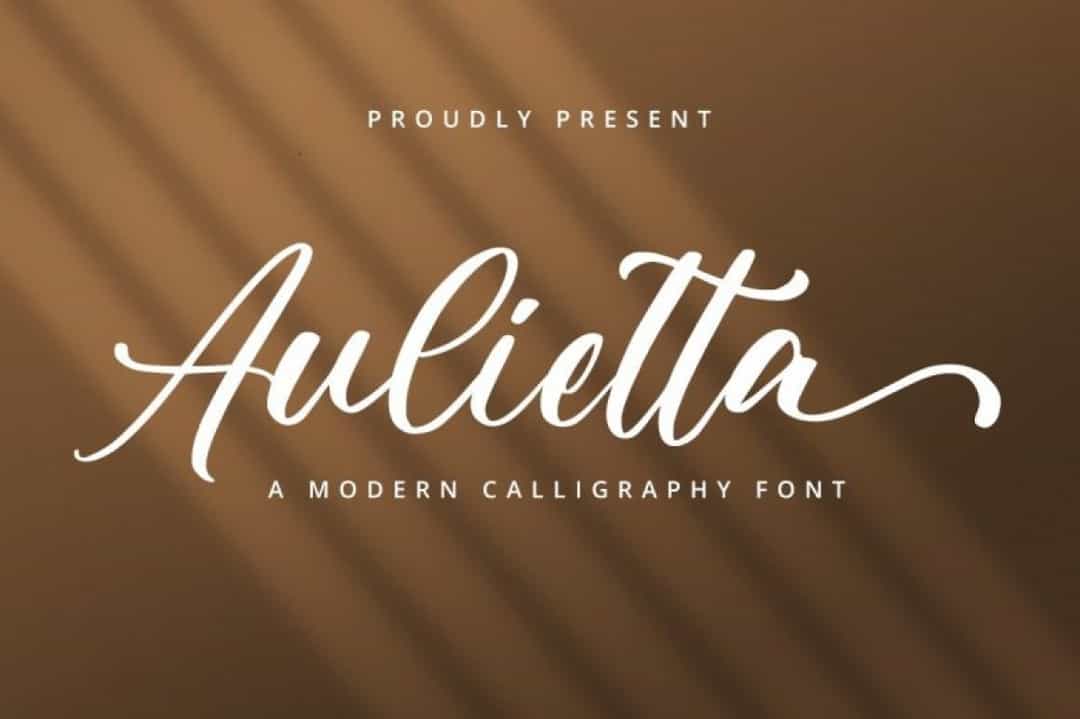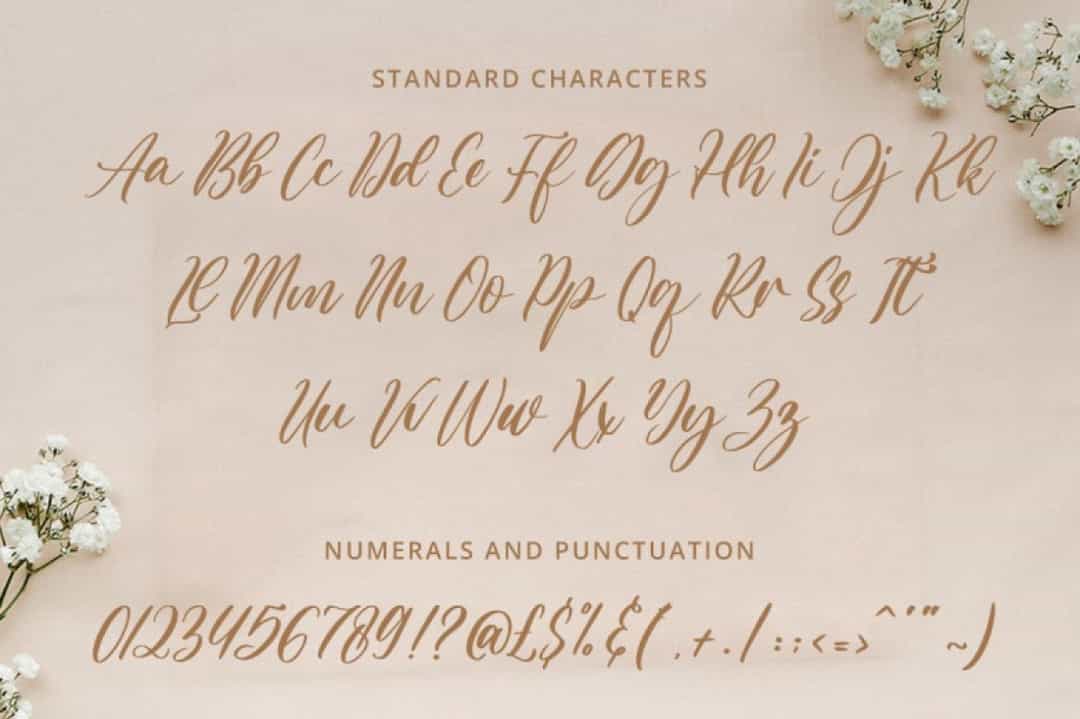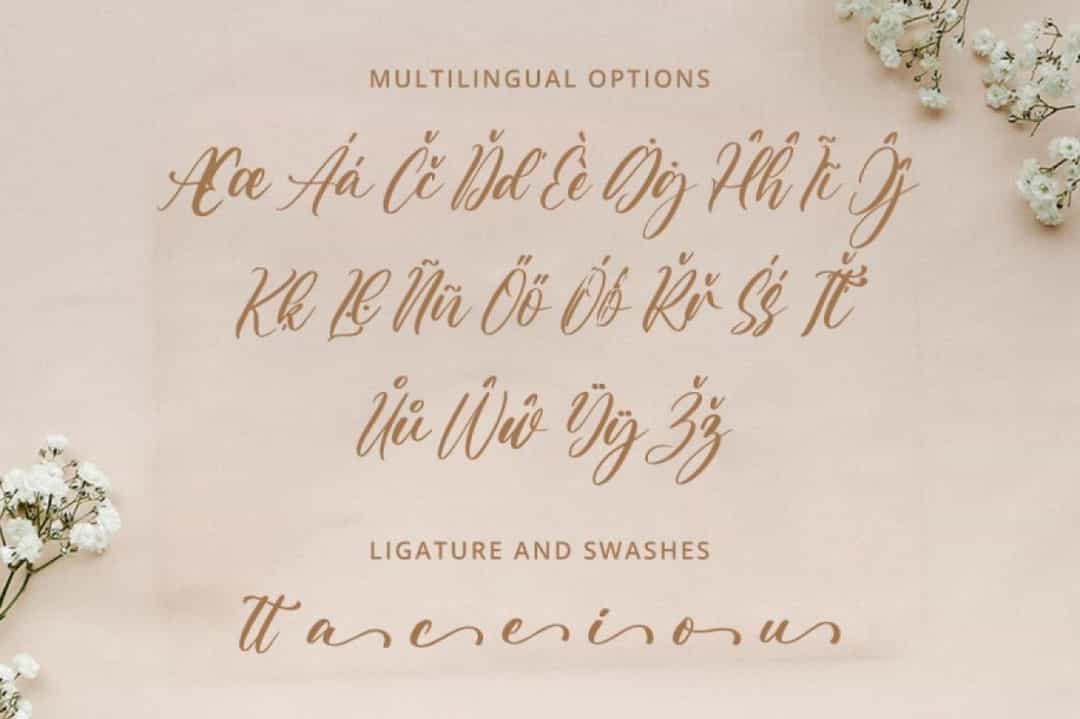
Aulletta is an elegant fluid and beautiful Calligraphy Script script that will inspire beautiful wedding invitations, stunning stationary items, captivating social media posts and adorable greeting cards. Plus it is PUA encoded, meaning all its characters can be easily accessed!